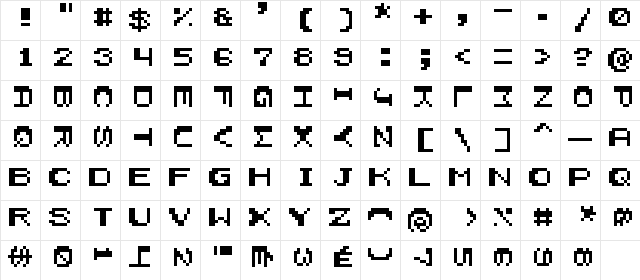
Graphs and Grids Regular
Design Context for Graphs and Grids Typeface
Graphs and Grids takes a measured approach to typography — its balanced proportions and neutral character make it a reliable workhorse for both digital and print work.